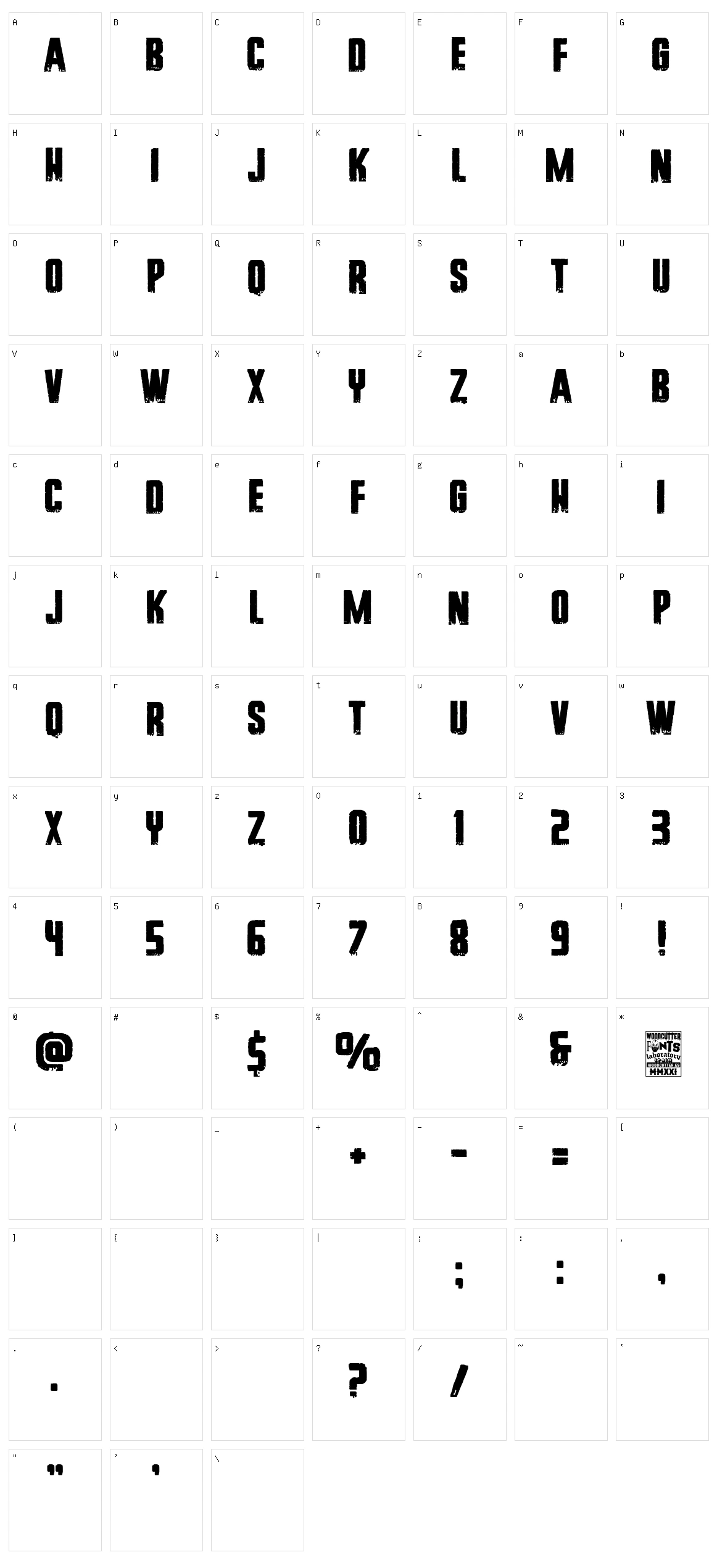
The free font New York Hardcore is carefully designed by Woodcutter, showcasing a thoughtful balance of creativity and usability and falls under the Destroy font style. When you download the ZIP file, it contains only 104.56 KB of font files, making it lightweight and quick to download. Please review the license details below to understand permitted usage and distribution rights. If license information is not available, we recommend using this font for personal projects only or contacting the author directly for commercial usage permissions.